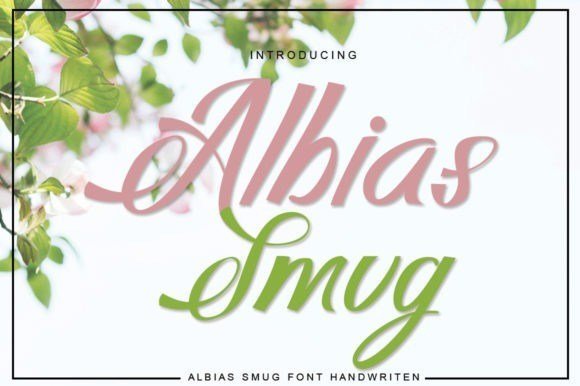
Albias Smug Script Font
Albias Smug Font, a sweet bold script font with alternates and lovely swashes.
It has fat strokes and smooth edge, that’s great for food branding, retro style, and eye-catching logo.